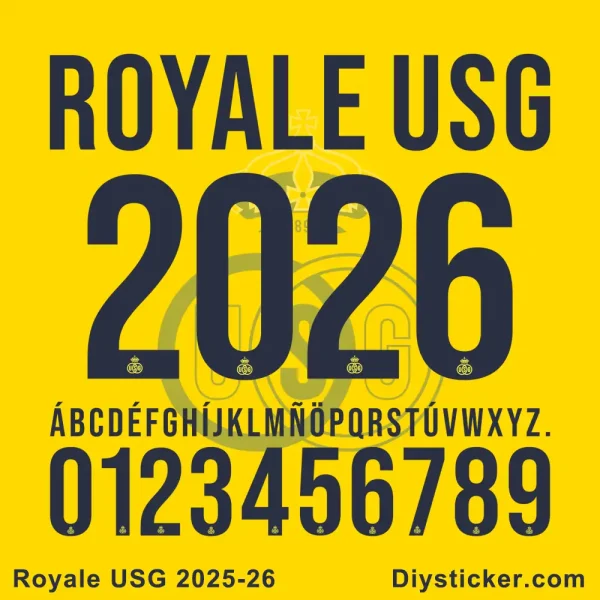
Royale Union Saint-Gilloise 2025-26 Font Downloads
Elevate Your Designs with the Royale Union Saint-Gilloise 2025-26 Font
Presenting the official Royale Union Saint-Gilloise 2025-26 font – the exact typeface used in the club’s jerseys, branding, and official materials. This complete digital font pack is ideal for designers, supporters, and content creators who want to incorporate the authentic USG style into their projects.